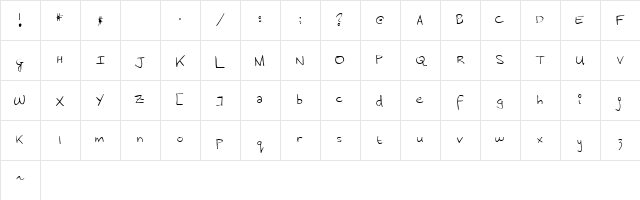
Menrath Antiqua Regular Free Font
Menrath Antiqua Regular
Designer: Joanna Briggs/H. Sebastian Menrath
Design Context for Menrath Antiqua
Menrath Antiqua is a composed and adaptable typeface that performs quietly and consistently across a wide range of design contexts.